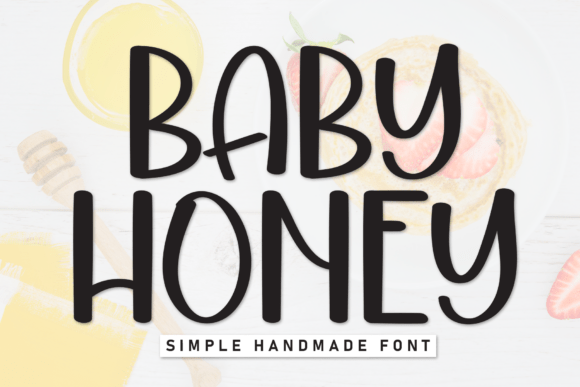
Discovering the Perfect Font for Your Brand As creatives, we’ve all been there – staring at a blank canvas, struggling to find the perfect font to bring our vision to life. The search can be overwhelming, but what if I told you that there’s a font that combines simplicity with a friendly, approachable vibe, making…